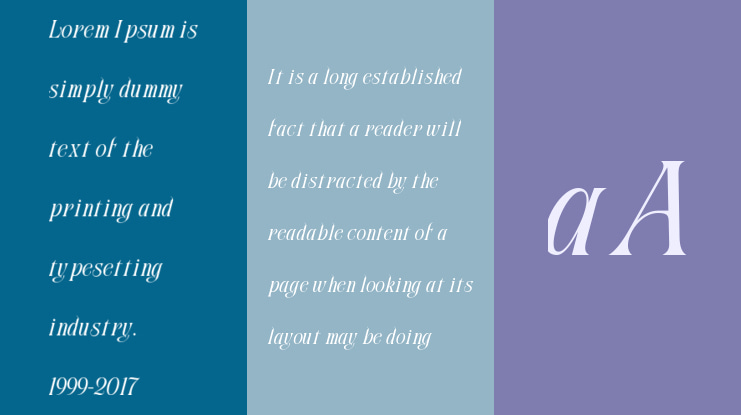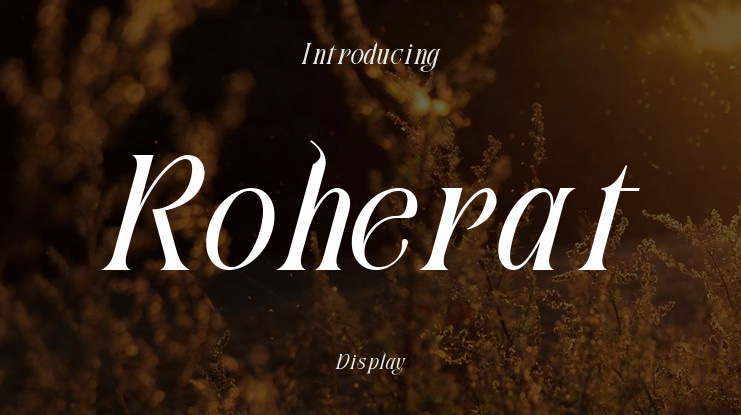
Roherat Font
Unveiling Roherat Typeface: A Symphony of Classic Elegance and Artistic Flair
Step into a world where timeless sophistication meets graceful expression with Roherat Typeface, a groundbreaking serif font meticulously designed to elevate your creative projects. Roherat is not merely a typeface; it's a meticulously crafted fusion, where the structured authority of traditional serifs seamlessly intertwines with the organic, fluid beauty of handwritten script-like swashes.